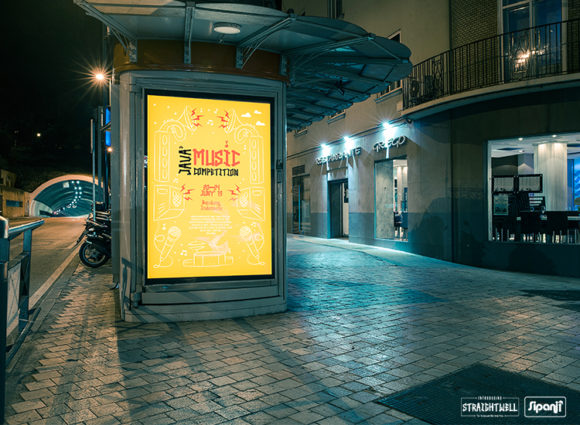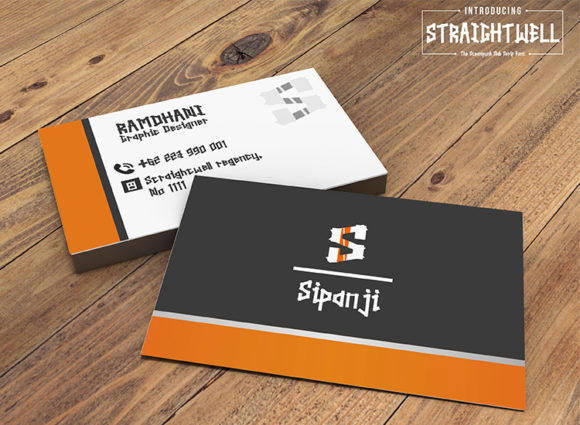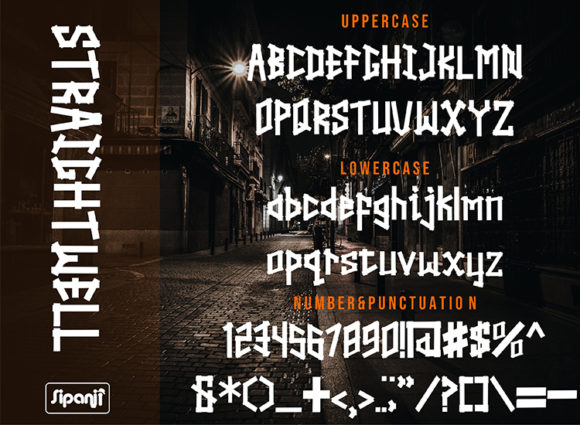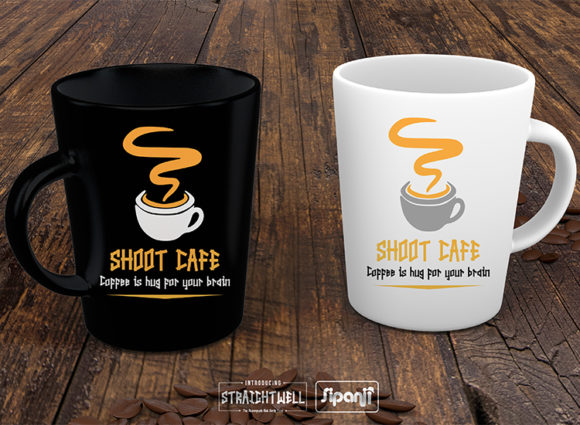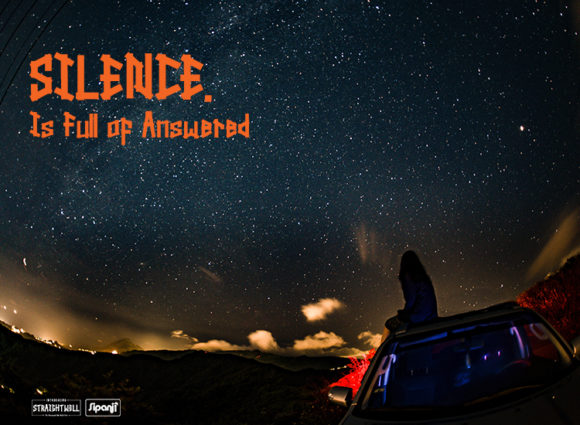
Straightwell
Straightwell: A Straightforward and Modern Slab Serif Font
Straightwell is a distinctive slab serif font that combines a straightforward design with a modern aesthetic. This typeface offers designers a powerful tool for creating impactful typography with a bold feel and unique character set.
Key Features of Straightwell
• Straightforward Design: Features a clean, uncomplicated structure for easy readability
• Modern Aesthetic: Incorporates contemporary design elements for a fresh look
• Bold Feel: Offers a strong visual presence that commands attention
• Unique Characters: Includes distinctive letterforms that set it apart from other slab serifs
• Slab Serif Structure: Maintains the characteristic thick, rectangular serifs typical of slab serif fonts
Ideal Uses for Straightwell
Straightwell’s unique characteristics make it particularly well-suited for:
• Contemporary branding and logo design
• Bold headlines and titles in print and digital media
• Modern poster and advertisement layouts
• Website headers and digital content
• Packaging design for products requiring a straightforward, bold look
When incorporating Straightwell into your designs, consider the following tips:
• Use for headlines or short blocks of text to maximize its bold impact
• Pair with simpler sans-serif fonts for body text to create contrast
• Experiment with different sizes to highlight the font’s unique characters
• Consider using it in projects where you want to convey modernity and strength
Straightwell is an excellent choice for designers looking to add a straightforward and modern slab serif to their typographic toolkit. Its bold feel and unique characters make it stand out in the world of typography. Whether you’re working on logo designs, creating eye-catching poster designs, or developing branding for contemporary projects, Straightwell offers the perfect blend of simplicity and boldness.
Get inspired by Straightwell’s unique characters and explore how it can bring a straightforward, modern edge to your design projects. From bold headlines to distinctive branding elements, this font provides the tools to create impactful and memorable typography that stands out with its clean design and strong visual presence.